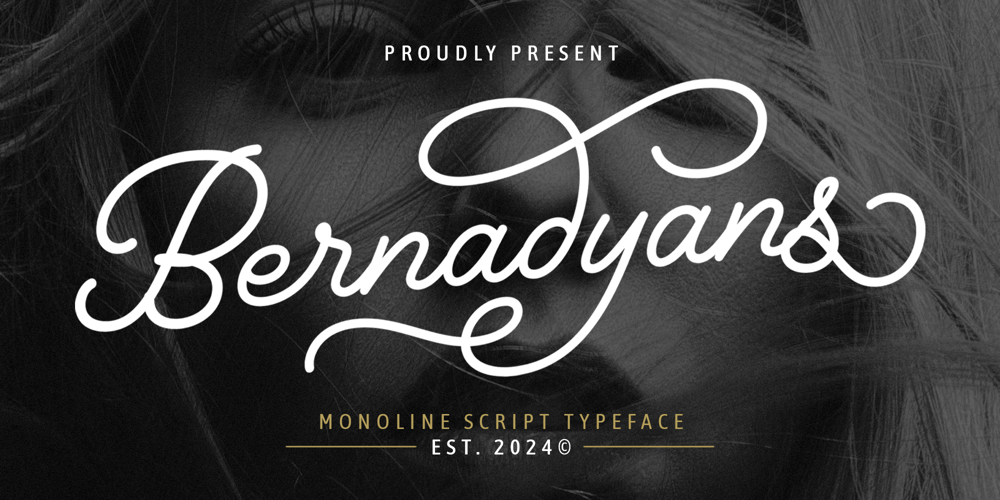
Bernadyans Script Pro Font Family was designed by Muhammad Rizaldi and published by Inviline. Bernadyans Script Pro contains 1 styles and family package options. Elegant Monoline Script Font with smooth, consistent strokes, perfect for logos, branding, wedding stationery, and timeless, minimalistic designs